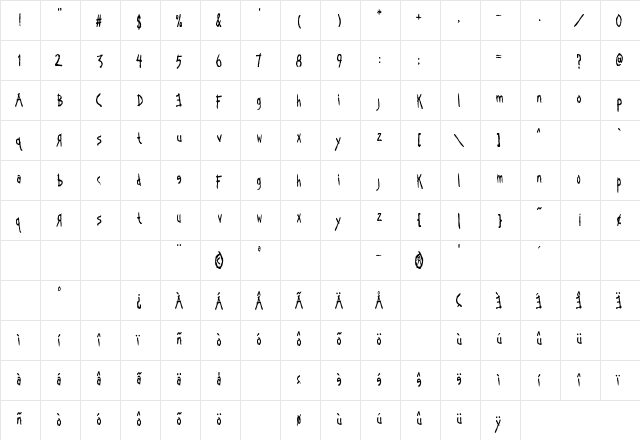
KoRnOgRaPhY Regular
| Foundry | Fusion Multimedia |
| Designer | Kevin Winn |
Design Context for KoRnOgRaPhY Typeface
KoRnOgRaPhY is a composed and adaptable typeface that performs quietly and consistently across a wide range of design contexts.